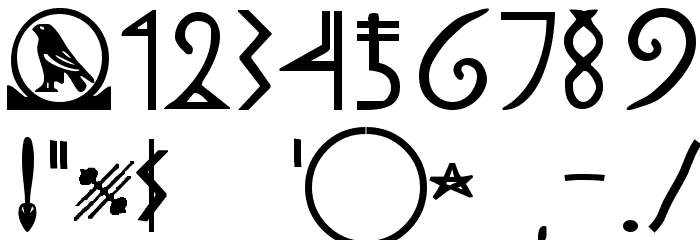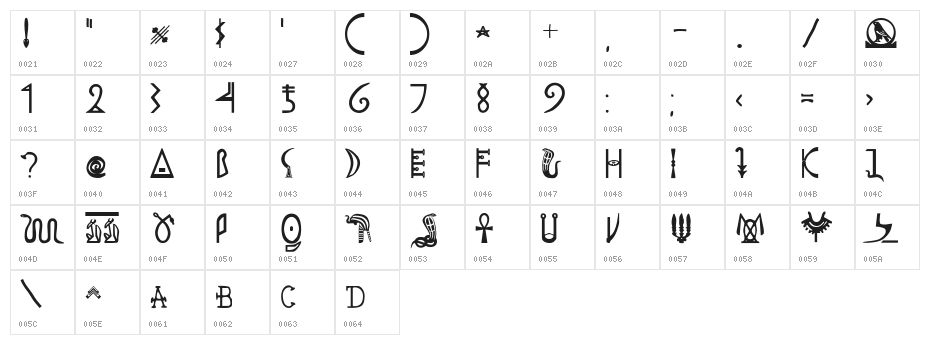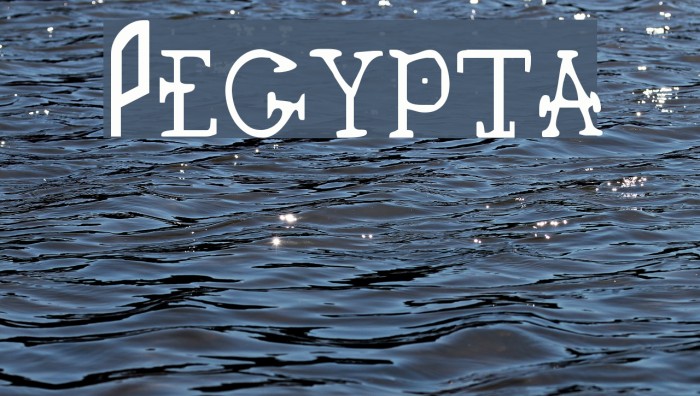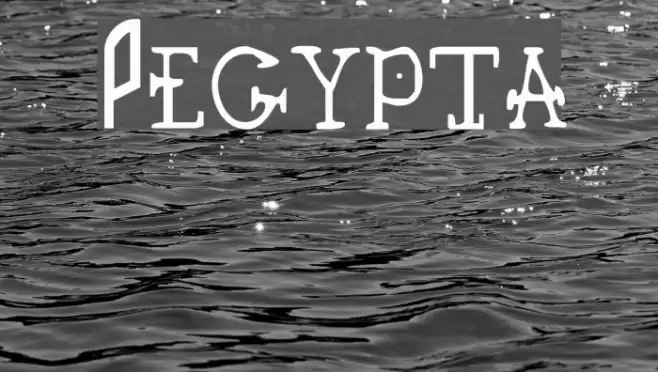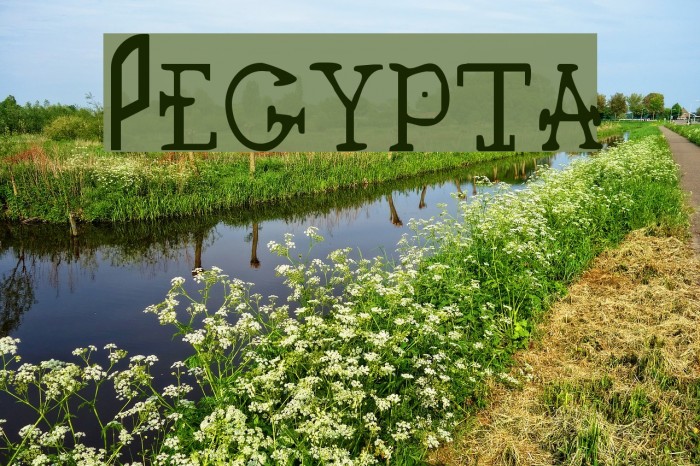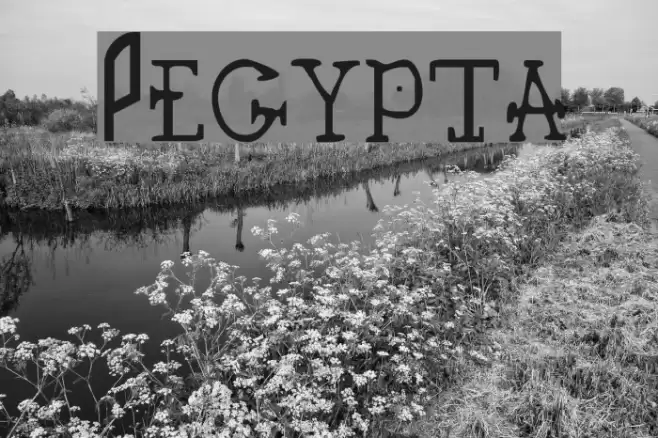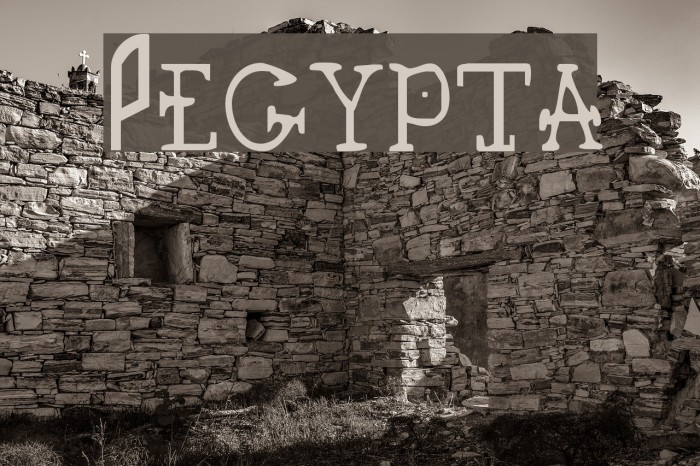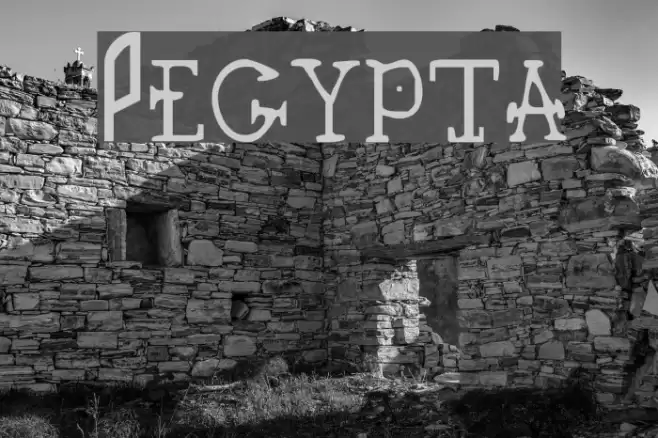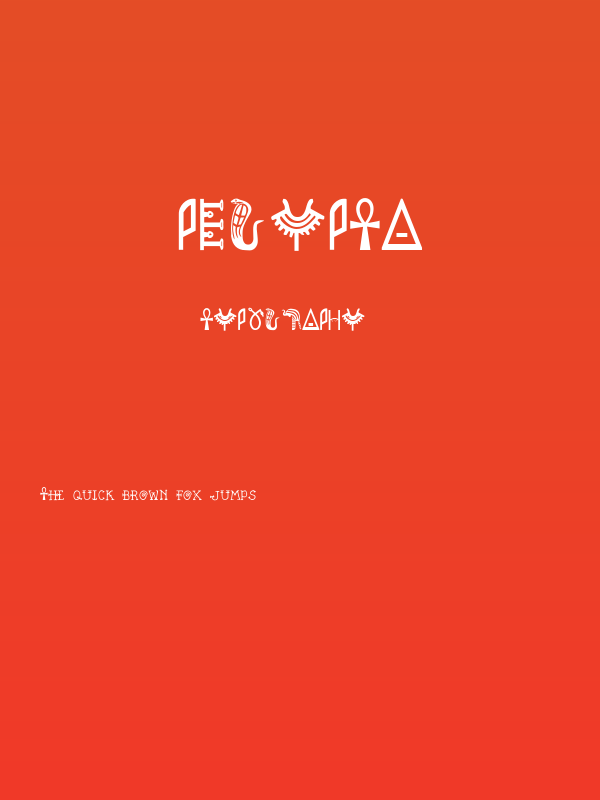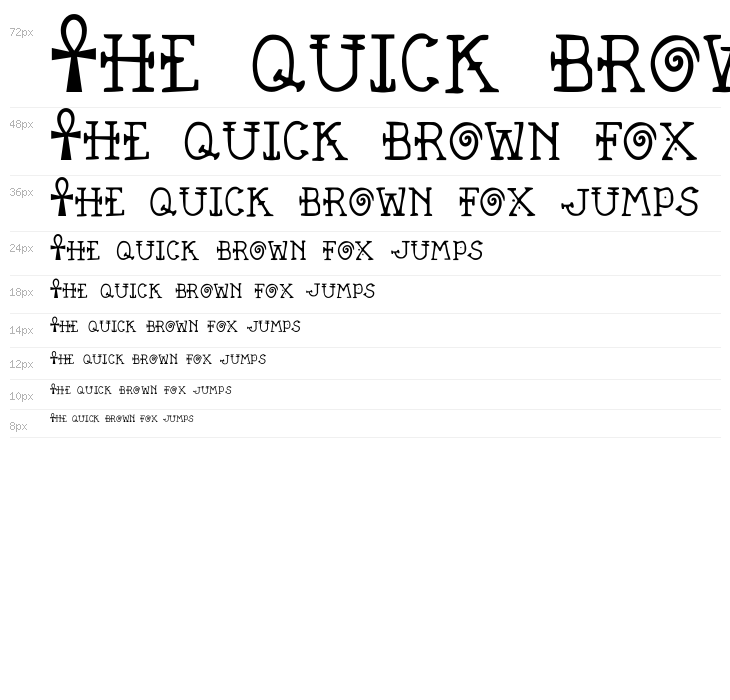
Pegypta Font
Pegypta Description
This font is a decorative and highly stylized typeface that draws inspiration from ancient Egyptian motifs and hieroglyphics. The uppercase letters feature intricate designs with elements resembling ancient symbols and artifacts, giving each character a unique and artistic flair. The lowercase letters maintain a similar style, with a slightly more simplified design. Numbers and special characters are equally ornate, incorporating thematic elements that enhance the overall aesthetic. The font's bold and artistic nature makes it ideal for projects that require a historical or exotic touch.
| Use Case | Headlines, Logos, Artistic projects |
| Proposed Projects | Ideal for themed event invitations, historical posters, educational materials, and artistic projects requiring an exotic flair. |